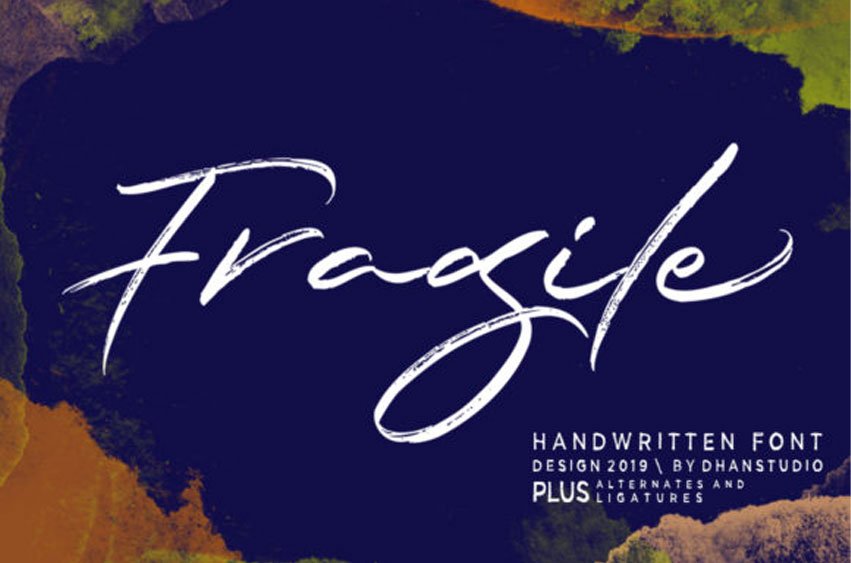
Fragile Script Font is a textured brush font. It was handmade with an irregular baseline and is equipped with many alternatives and ligatures.
It can be used to add a natural touch to your stationery designs, quotes, branding, logos, greeting cards, t-shirts, packaging designs, posters and more.